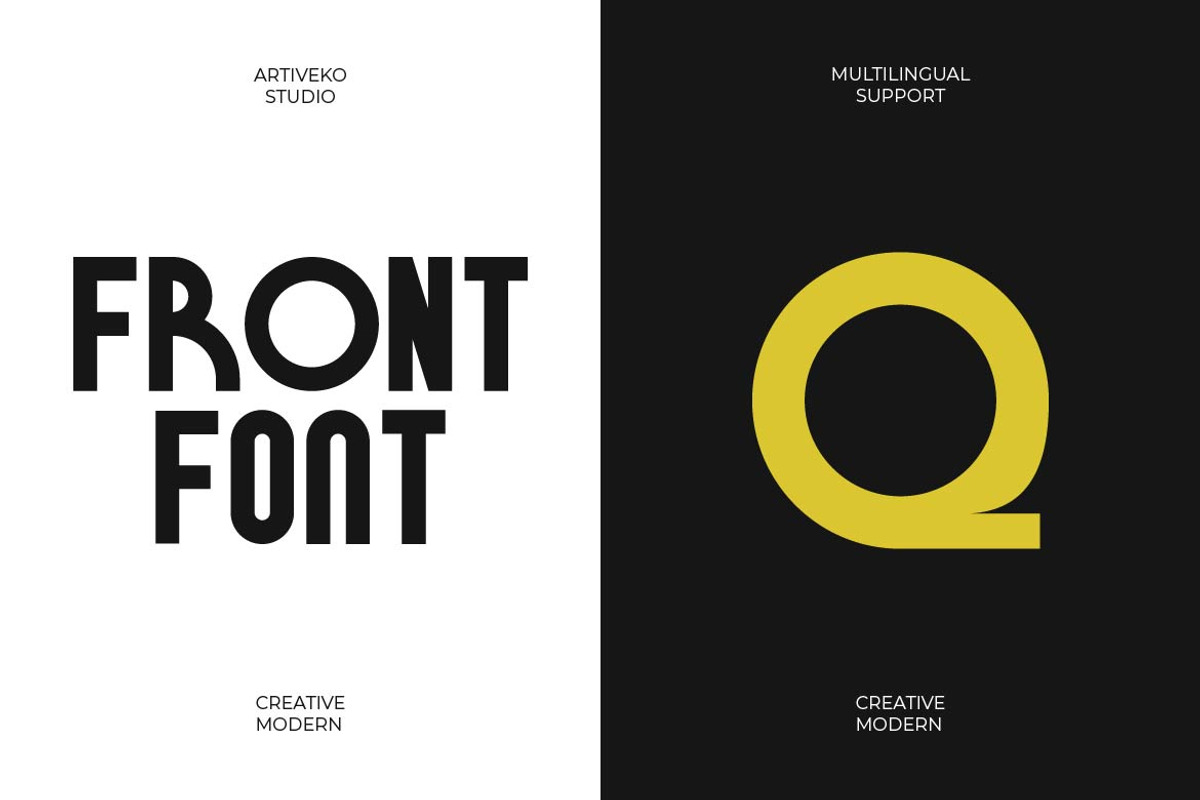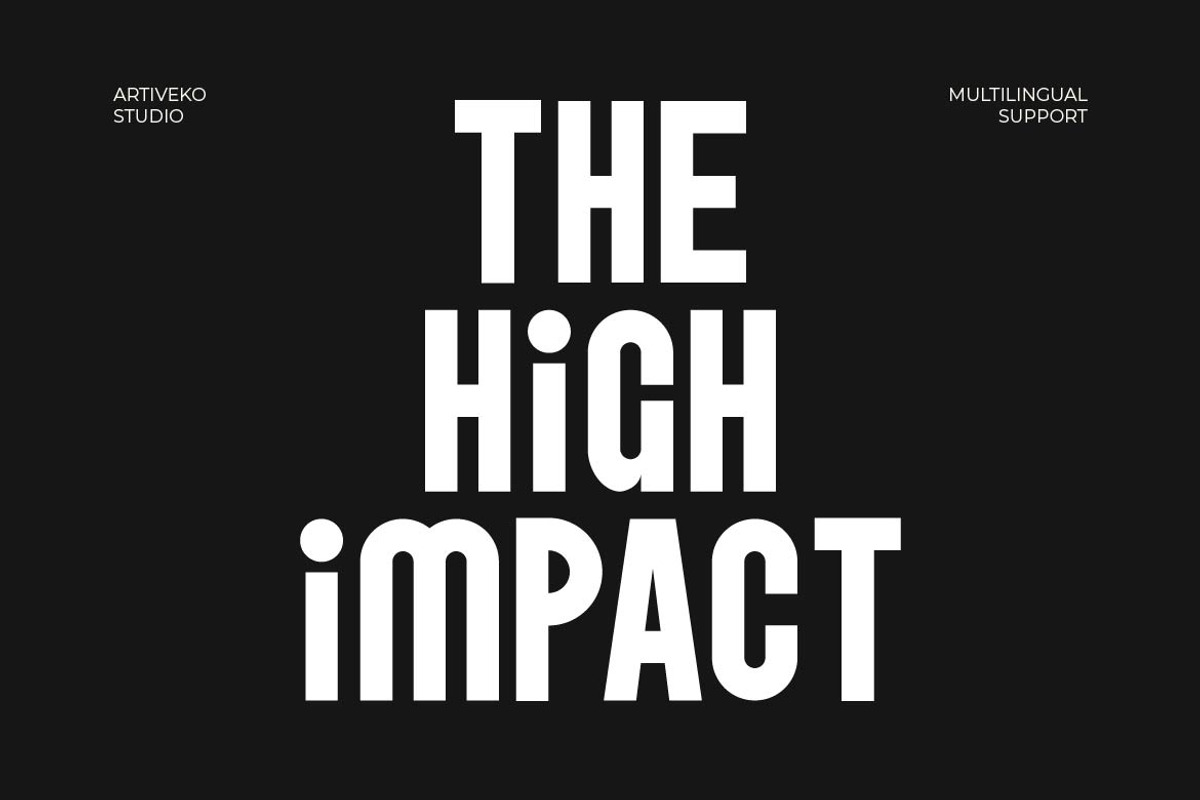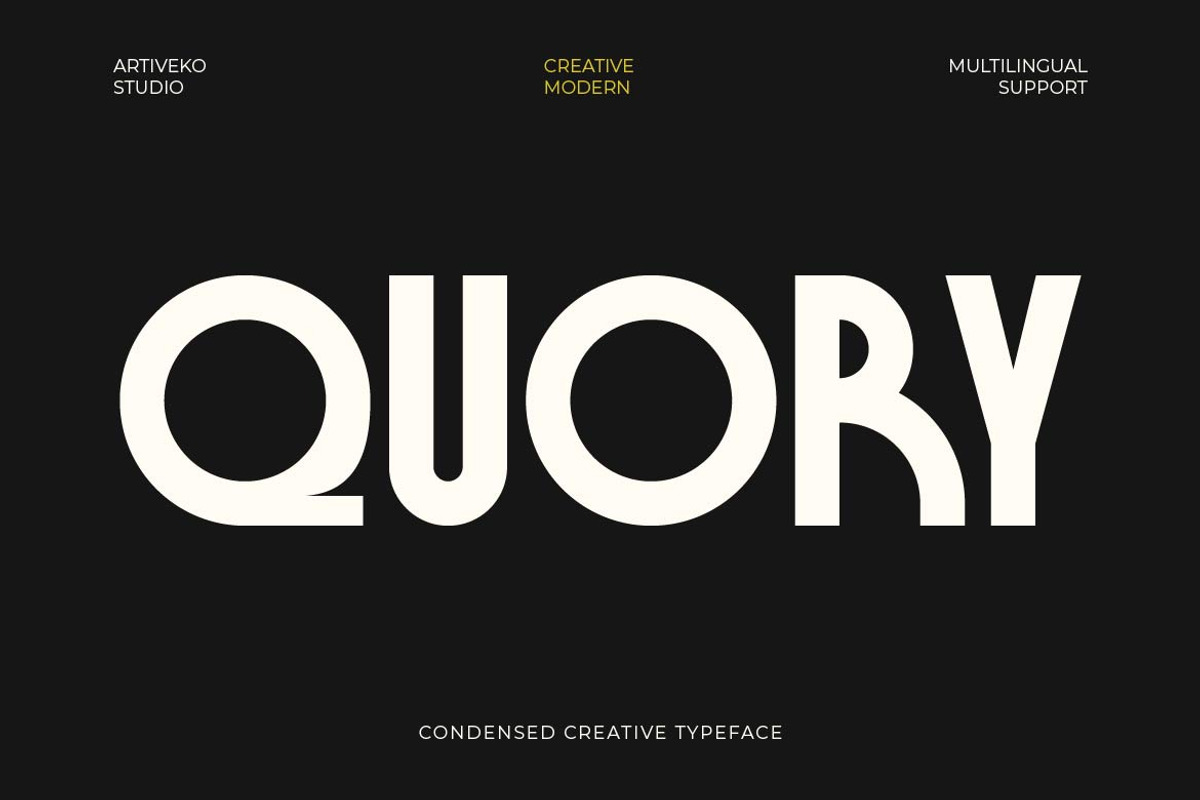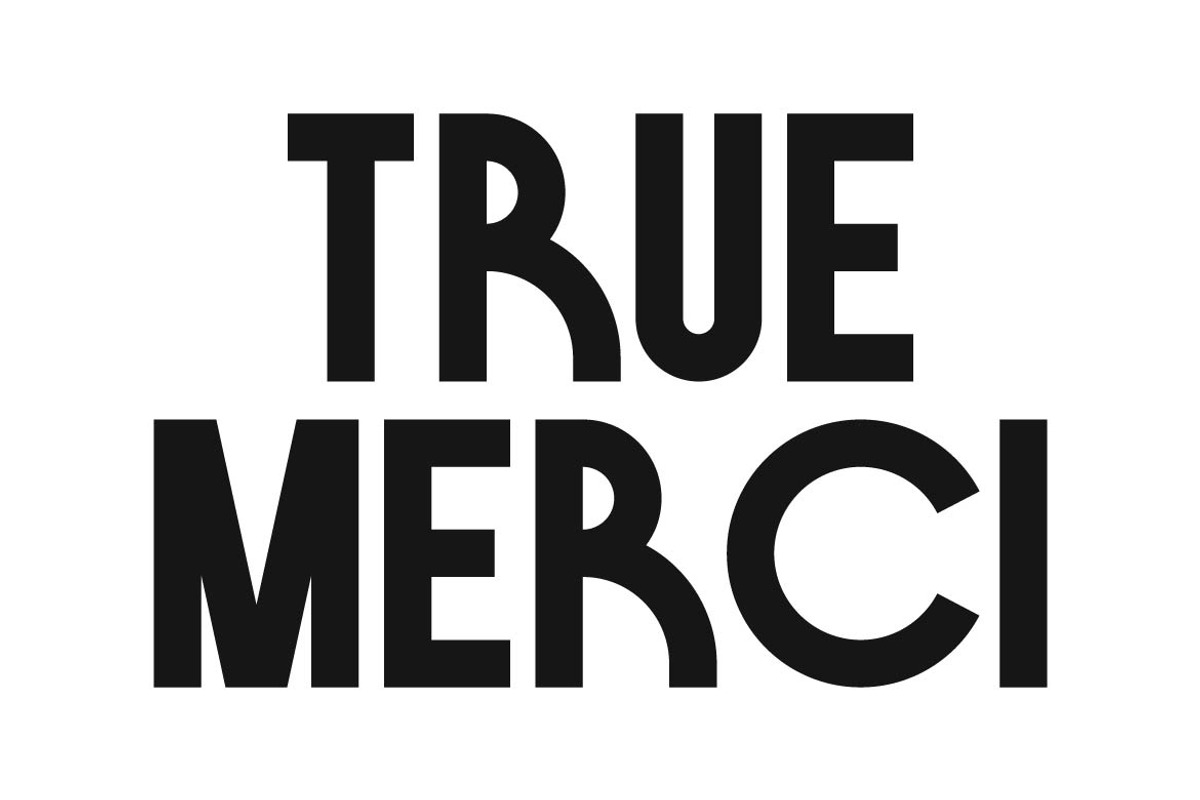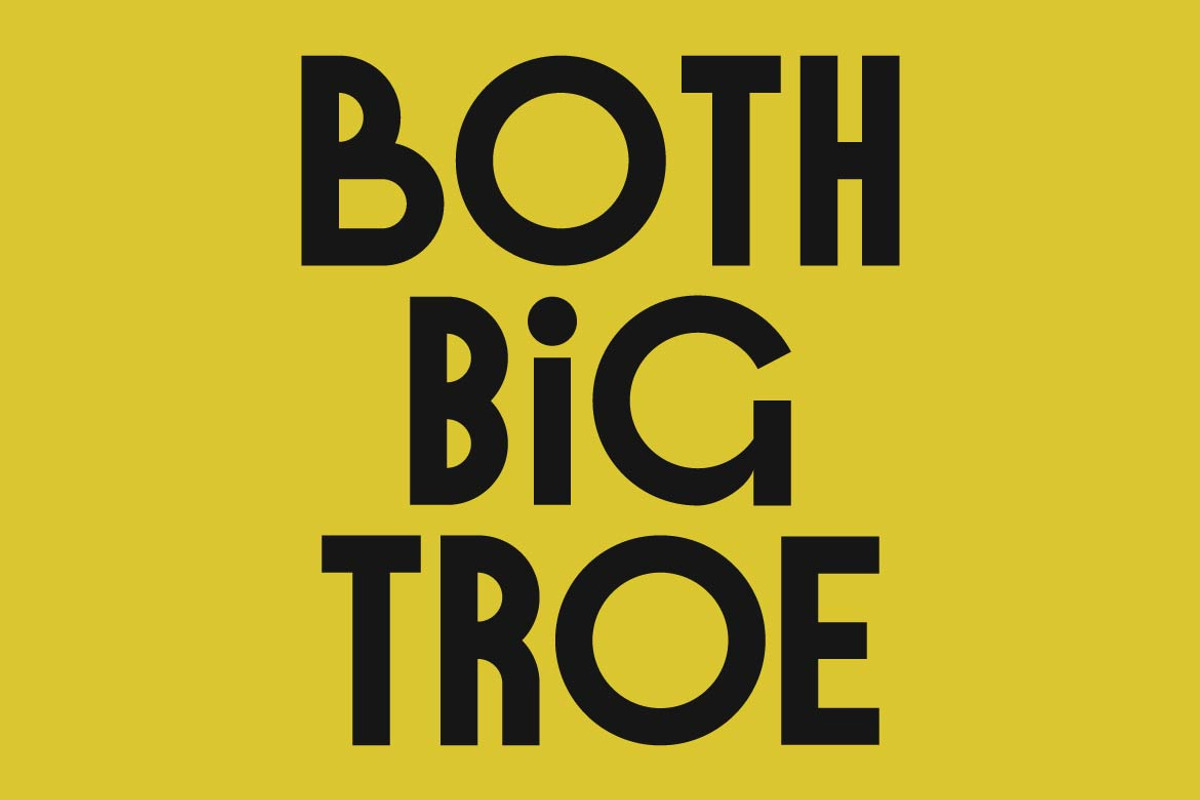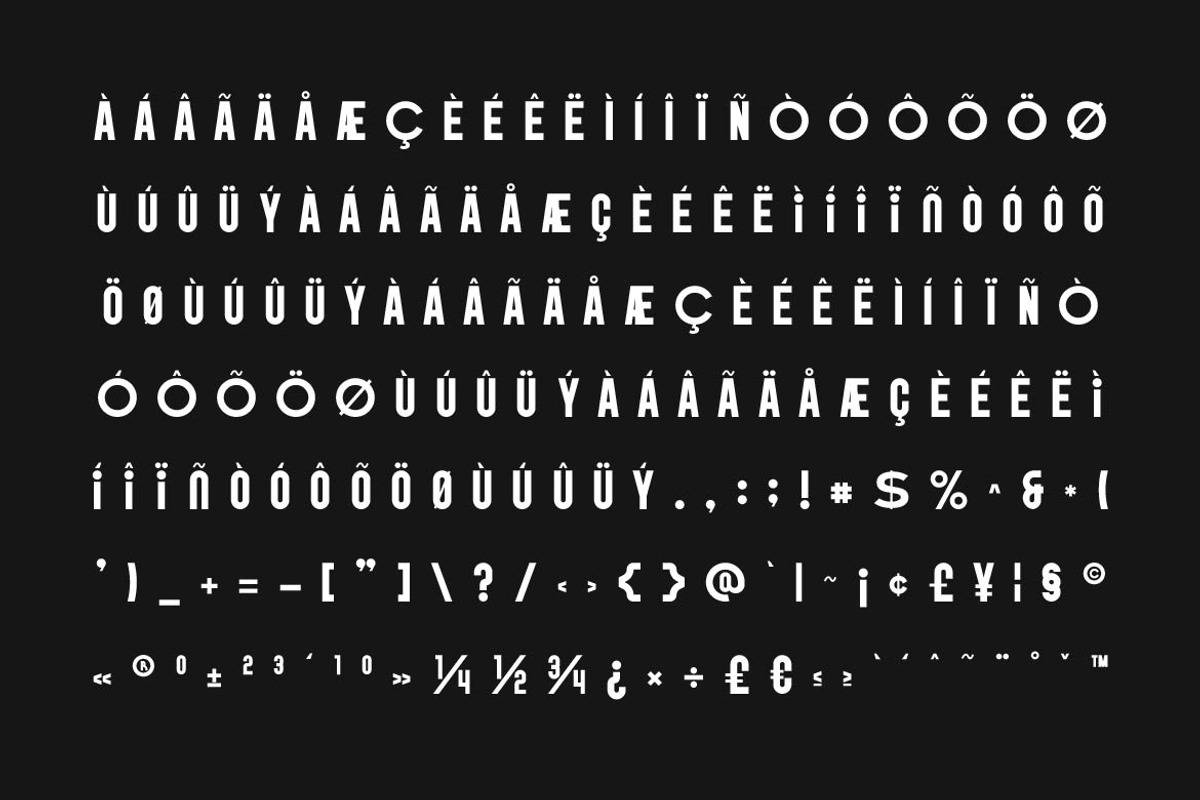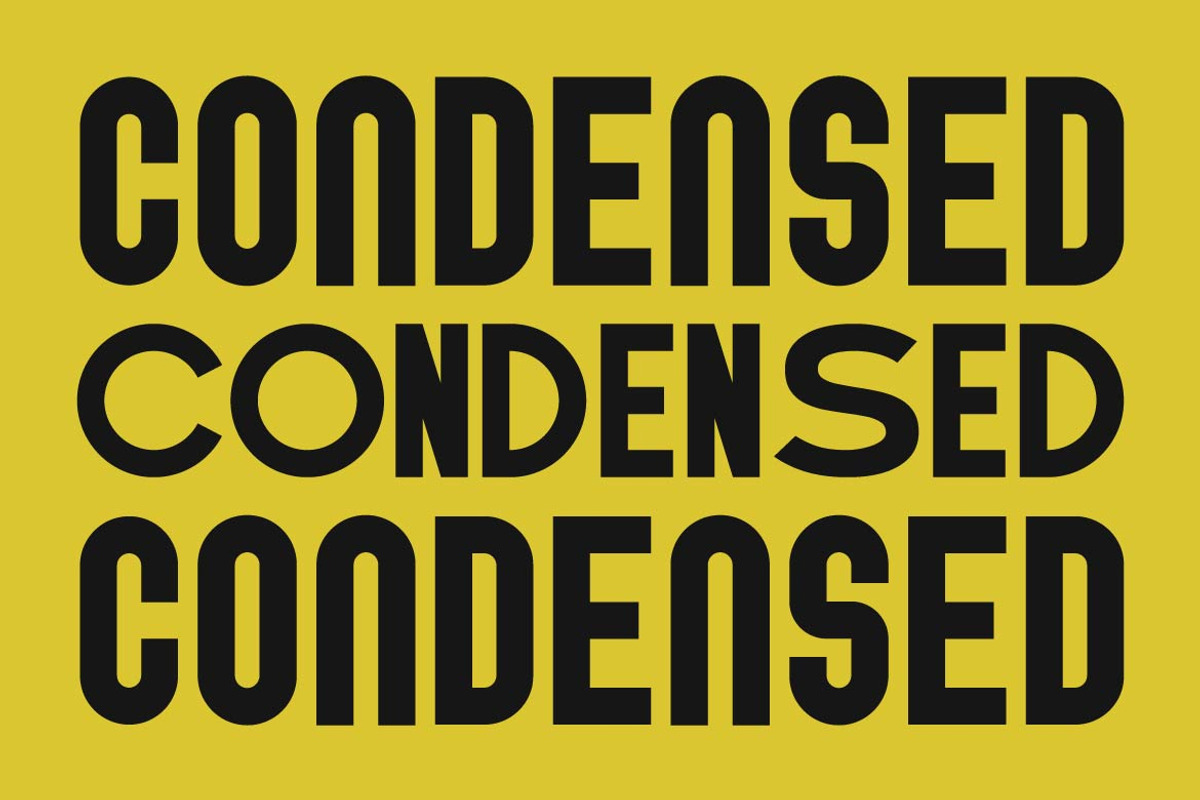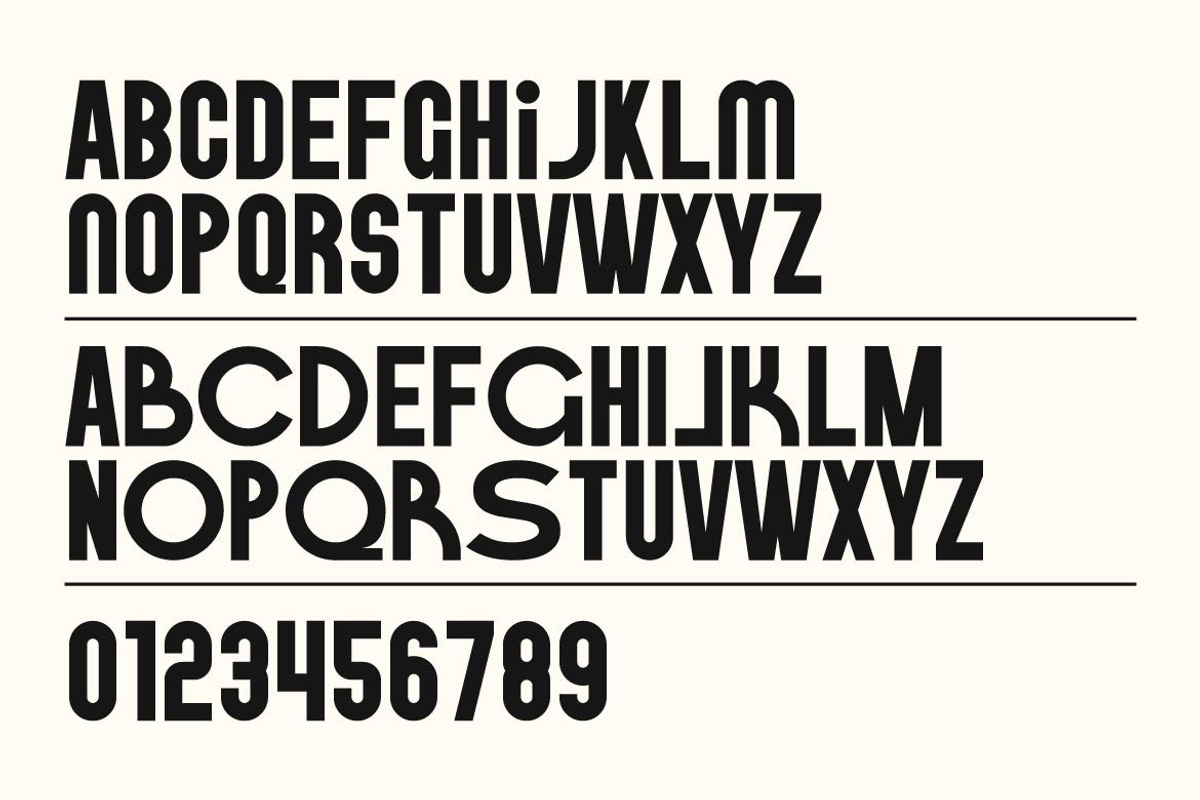
Quory – Retro Condensed Sans Serif
Quory is a retro-inspired condensed sans serif typeface that blends vintage character with modern clarity. With tall proportions, narrow structure, and distinctive retro styling, Quory delivers a bold and nostalgic feel while remaining clean and highly readable.